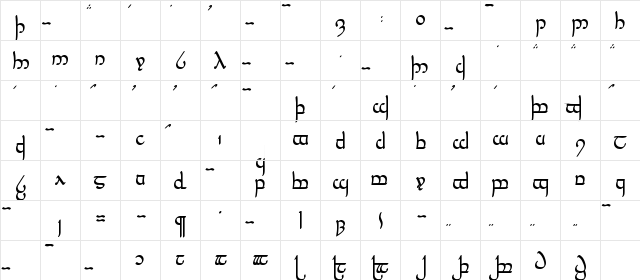
Tengwar Naive Book
Design Context for Tengwar Naive Typeface
Tengwar Naive takes a measured approach to typography — its balanced proportions and neutral character make it a reliable workhorse for both digital and print work.